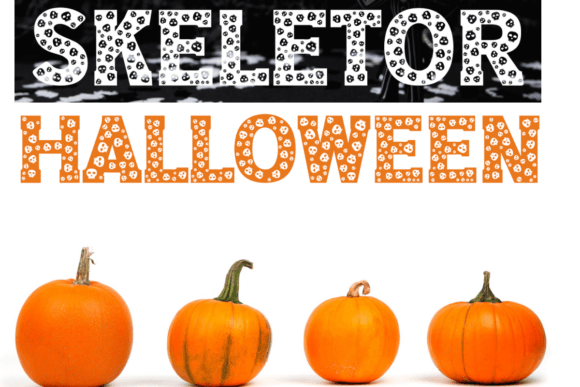
Introducing Skeletor - the ultimate Halloween font that will send shivers down your spine! Unleash your creativity and cast a spellbinding enchantment over your Halloween designs with Skeletor's haunting presence.
Immerse yourself in the eerie embrace of Skeletor's jagged edges and bold lettering, meticulously crafted to evoke the very essence of fear and mystery. This spine-chilling font is your passport to a realm of limitless possibilities, empowering you to conjure up hauntingly beautiful posters, flyers, and websites that will leave an unforgettable mark on your audience.
With Skeletor as your visionary companion, your Halloween creations will transcend the ordinary and delve into the extraordinary. Every stroke of this font is a testament to the power of imagination, beckoning you to unleash your inner darkness and captivate all who dare to gaze upon your wicked designs.
Don't let another Halloween pass by without the captivating allure of Skeletor. Embrace the spirit of the season and let this font ignite your creativity, leaving a trail of spine-tingling delight in its wake. Prepare to be spellbound by Skeletor - the font that will make your Halloween hauntingly unforgettable!